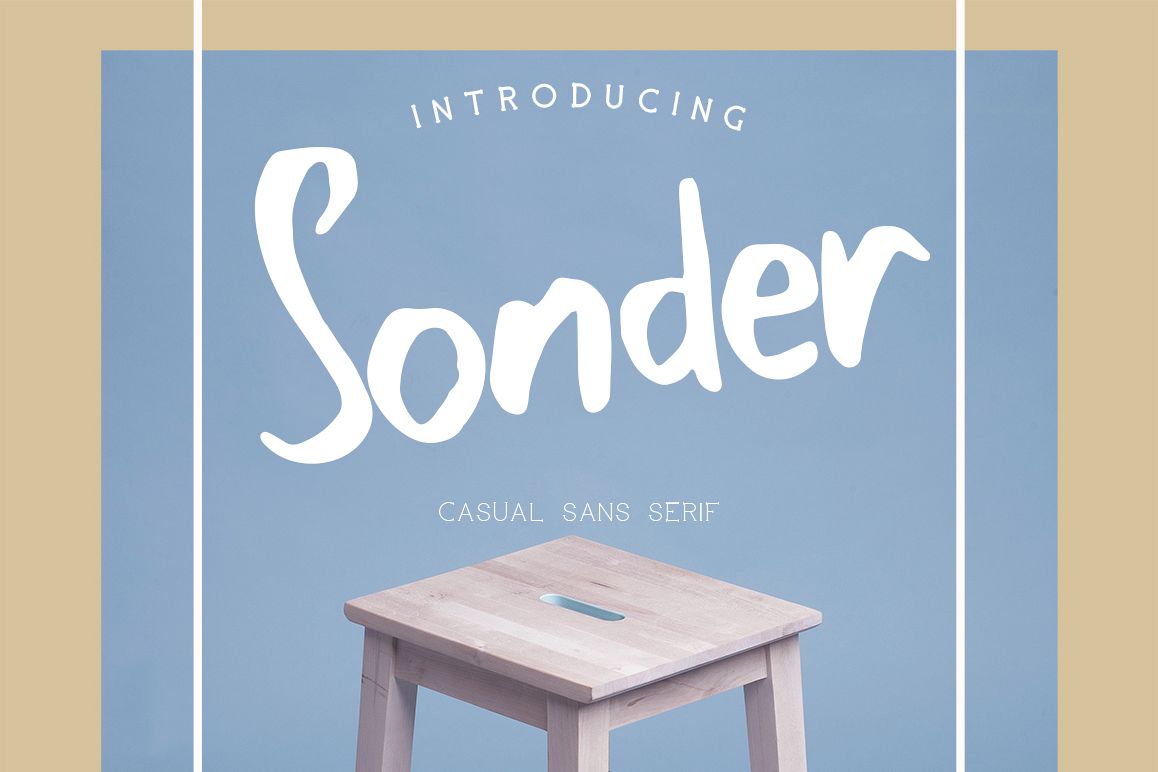
Sonder
SonderRegular
Introducing:  Sonder Font is new handwritten font, sonder font includes a full set of capital and lowercase letters, SOnder is perfect for your next project.
Can be used for various purposes.such as logos, wedding invitation, apparel design, greeting cards, signage, labels,
headers, printed quotes, posters, badges etc.
- Uppercase & lowercase
- Punctuation & numerals